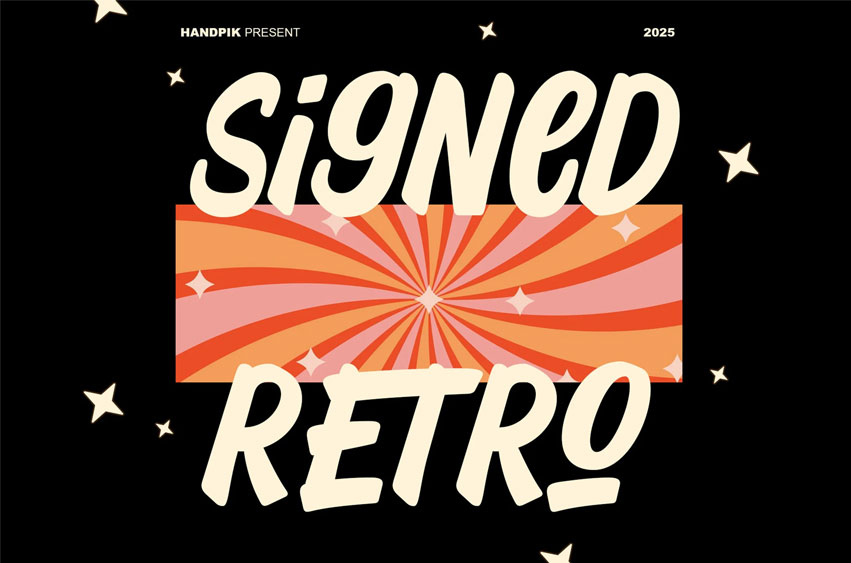
Signed Retro Font
Signed Retro Font is ideal for various projects, including books, magazines, logos, branding, photography, quotes, blog headers, posters, and advertisements.